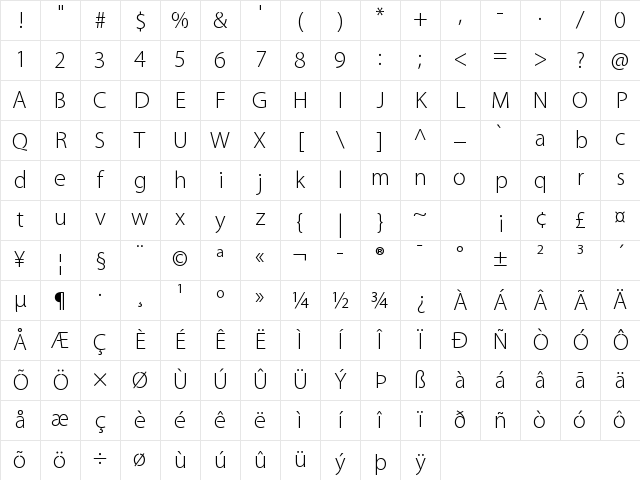
Cleanvertising is a composed and adaptable typeface that performs quietly and consistently across a wide range of design contexts. Its slender proportions lend an understated elegance to any composition.
Pro Tip: Use Cleanvertising in both headline and body roles to test its range before committing to a single application.